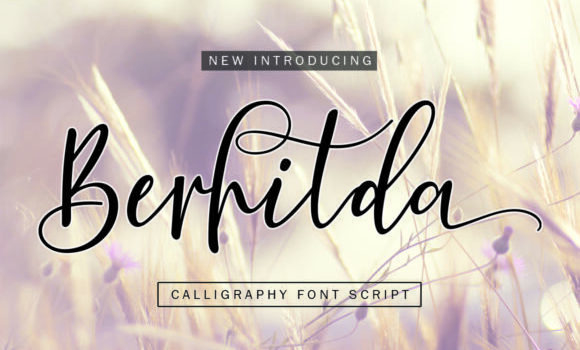
Berhilda Font – Free Download Introduction to Berhilda Font The Berhilda is a modern calligraphy font. 📸 Preview Gallery 5 images 📌 Product Name Berhilda Font 👤 Author mightype89 📂 Category Explore ⬇️ Download Berhilda Font FREE Free Download •